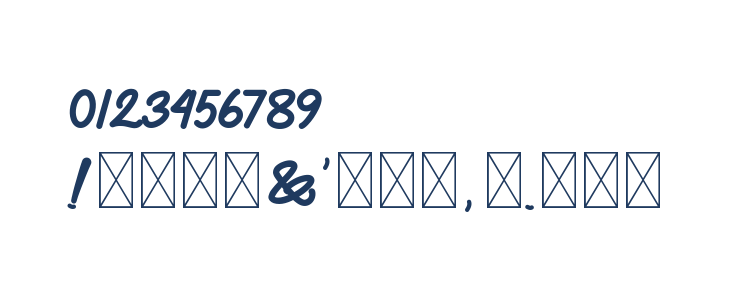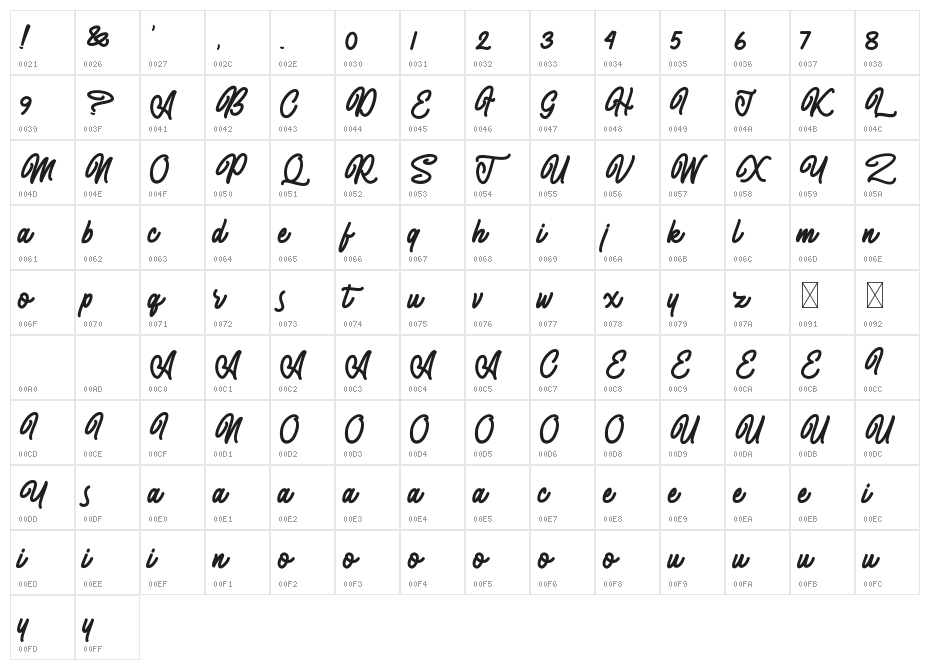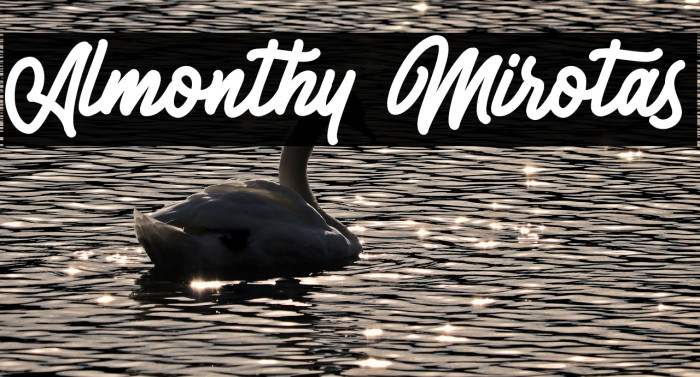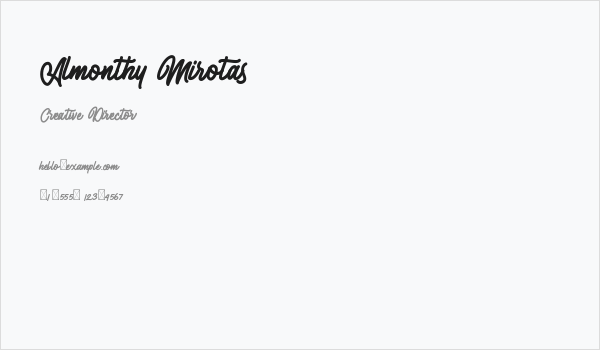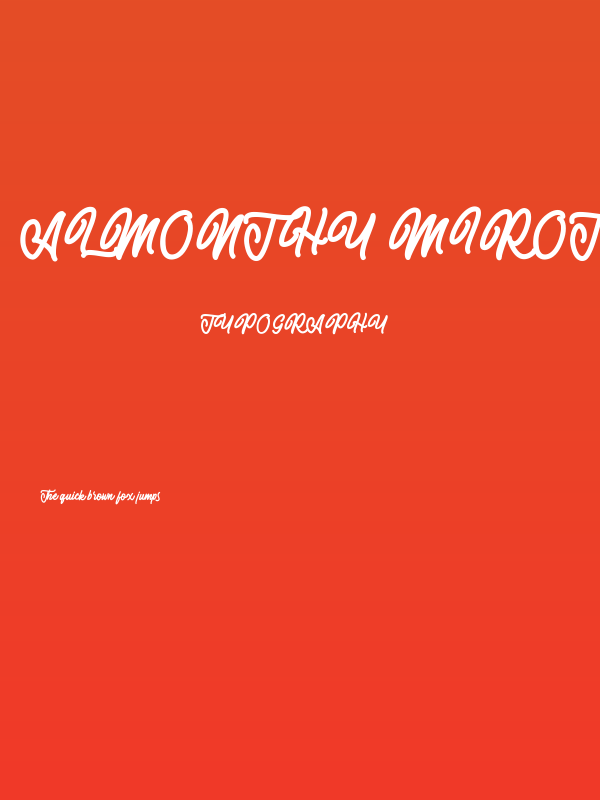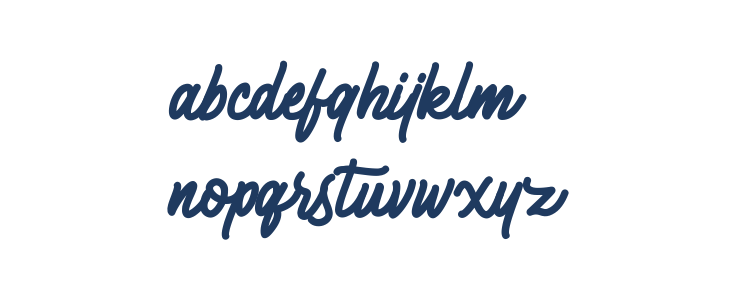
Almonthy Mirotas Font
Almonthy Mirotas Description
This font features a dynamic and expressive script style, characterized by its fluid and connected letterforms. The uppercase letters exhibit a playful yet elegant flair, with smooth curves and a slight slant that adds a sense of movement. The lowercase letters maintain a consistent flow, enhancing readability while preserving the artistic touch. Numbers and special characters are designed to complement the overall aesthetic, making them suitable for creative and decorative purposes. The font's bold weight and medium contrast in stroke thickness contribute to its striking appearance, making it ideal for attention-grabbing designs.